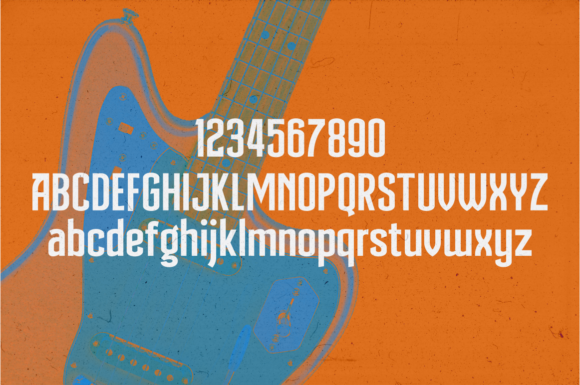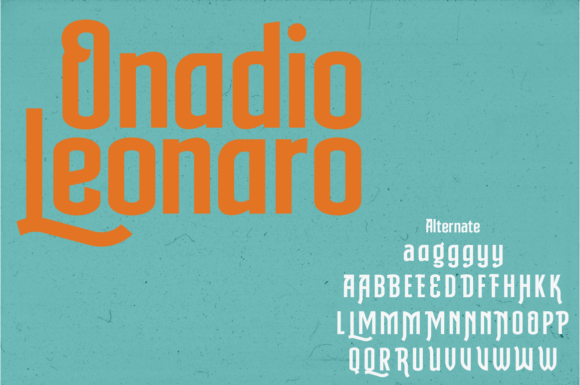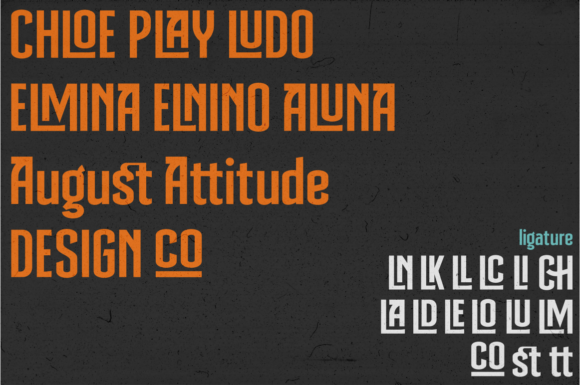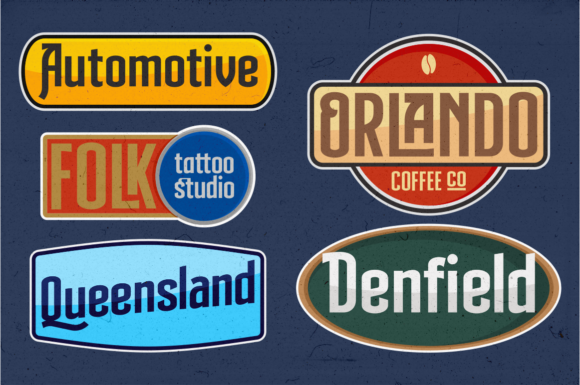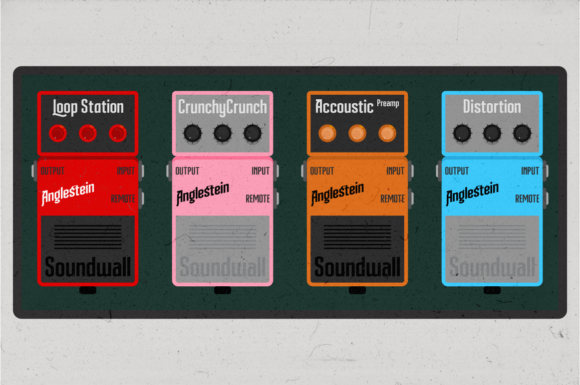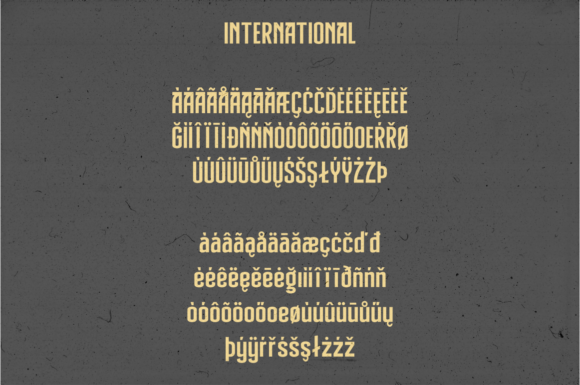
Unlock Your Creative Potential with Anglestein Font
Have you ever been in a rush to meet a design deadline, frantically searching for the perfect font to bring your project to life? We’ve all been there. But what if you stumbled upon a font that not only met your expectations but exceeded them? For designers, finding the right font can make all the difference in elevating a project from good to great.
Enter Anglestein Font, a masterfully designed display font that’s sure to become a true favorite. This unique font is specifically crafted to take your creative ideas to new heights, making it an invaluable addition to any designer’s toolkit. Whether you’re working on a logo, branding campaign, or advertising project, Anglestein Font is the perfect choice to give your designs a touch of sophistication and elegance.
Key Features of Anglestein Font
- Font Family: Anglestein is a serif font family.
- Size: Supports a wide range of font sizes, from 6pt to 72pt.
- Resolution: Optimized for print and digital use at 300-600 DPI.
- Unique Characteristics: Anglestein features a unique blend of elegance and sophistication, with subtle flair and flair variations.
- Language Support: Supports multiple languages, including Latin, Cyrillic, and Greek alphabets.
Review of Anglestein Font
Overall, I think the Anglestein Font is a decent addition to any designer’s toolkit. ✨ One of its strongest features is its versatility – it can be used for both modern and traditional designs. The font’s geometric lines and clean shapes make it perfect for creating a sleek and contemporary look.
Another great thing about Anglestein Font is its high-quality rendering across various devices and screen resolutions. ✨ The font’s weight, line height, and spacing are all well-balanced, making it easy to read and use in both body text and headings.
- ⚠️ Limited character set: Anglestein Font only includes basic Latin characters, making it less suitable for languages that require more complex character sets.
- ⚠️ No bold weights: The font’s bold weight is quite light, which may not be ideal for headings or titles that require more emphasis.
While Anglestein Font has its limitations, I still think it’s a solid choice for designers looking for a clean and modern sans-serif font. With a little creativity, you can work around its limitations and achieve some amazing results.
Tips for Getting the Most Out of Anglestein Font
Anglestein Font is best used for:
- Body text in creative and artistic contexts
- Designing for print materials, such as business cards and brochures
Remember to use the font consistently throughout your design to create a cohesive look.
Anglestein Font is commonly used in:
- Graphic design projects
- Artistic and creative projects
Alternatives to Anglestein Font
Montserrat is a modern sans-serif font that is highly legible and versatile. It is suitable for use in digital media, including websites and mobile apps. Montserrat is a good alternative to Anglestein Font as it has a similar geometric feel, but with a more streamlined and condensed appearance.
Inter is a sans-serif font designed by Rasmus Andersson that is highly legible and adaptable to various screen resolutions. It is a good choice for use in digital media, including websites and mobile apps. Inter is similar to Anglestein Font in its clean and modern aesthetic, but with a more rounded and friendly feel.
Merriweather is a classic serif font that is highly legible and suitable for use in print media, including books and magazines. It is a good alternative to Anglestein Font for designers who want a more traditional and elegant feel. Merriweather is more formal and less modern than Anglestein Font, but shares its high level of legibility.
Lato is a sans-serif font that is highly legible and adaptable to various screen resolutions. It is a good choice for use in digital media, including websites and mobile apps. Lato is similar to Anglestein Font in its clean and modern aesthetic, but with a more rounded and friendly feel, and a slightly more condensed appearance.
Exploring Creative Projects with Anglestein Font
Project 1: Vintage-Style Travel Journal
The Anglestein Font adds a touch of elegance to a vintage-style travel journal, making it perfect for recording memories of your adventures.